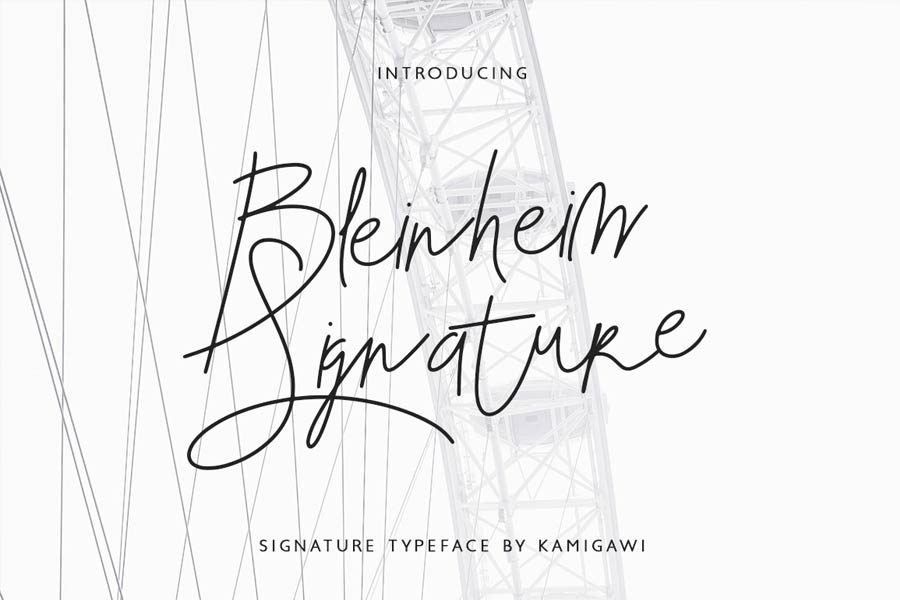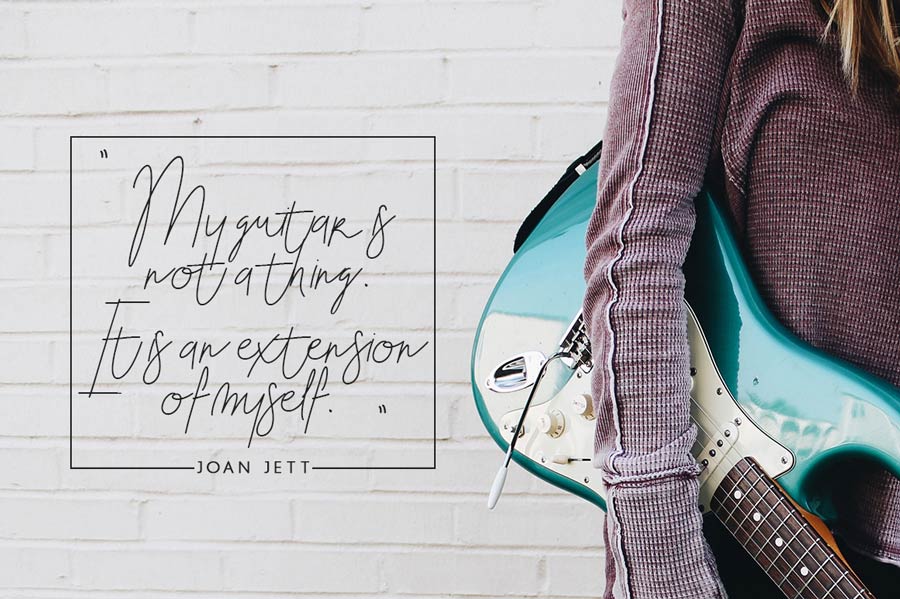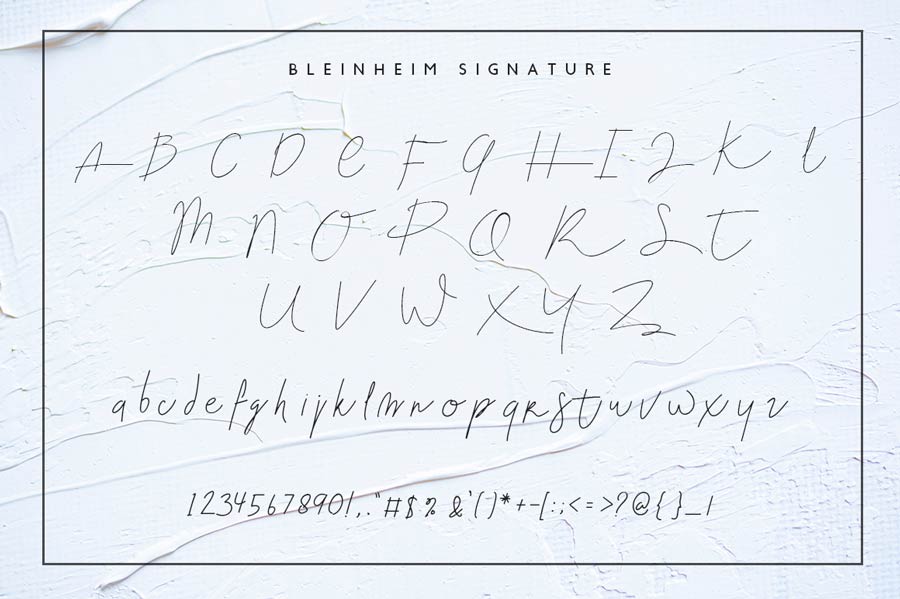
Bleinheim Signature is a truly unique signature style handwriting font. With this font, it allows you to quickly create a signature style handwriting with personal touch.
Bleinheim Signature works perfect for modern and classic designs, be it branding, logo, label, quote designs and more.